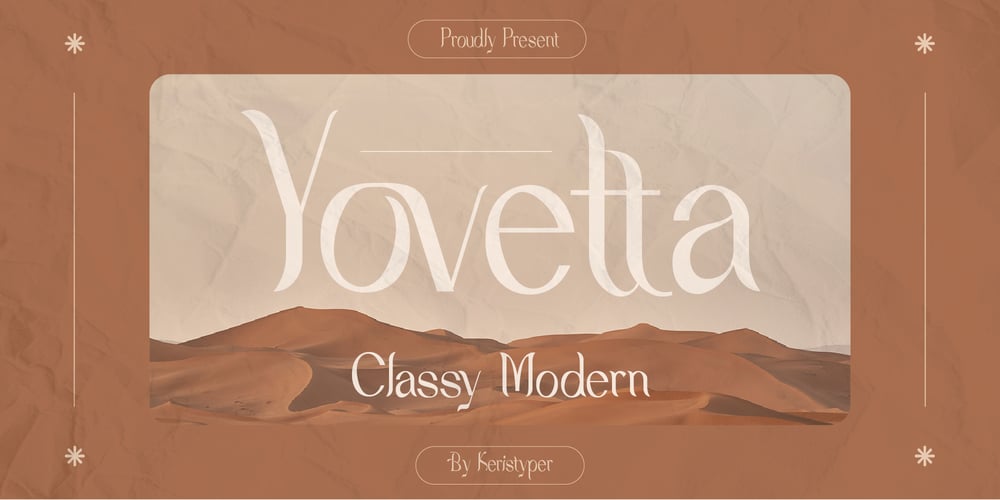
Yovetta Font Family was designed by Tezar Tantular and published by Keristyper Studio. Yovetta contains 1 styles and family package options. Yovetta is an aesthetic sans serif typeface that looks elegant and timeless inspired by nature and classy modern. This hand-drawn typeface is made in a digital hand-drawn style with a classy scripted look. This font is good for logo design, Social media, Movie Titles, Books Titles, short text even long text letters, and good for your secondary text font with sans or serif.**Featured:*** Standard Uppercase & Lowercase* Numeral & Punctuation* Multilingual : ä ö ü Ä Ö Ü ß ¿ ¡* Alternate & Ligature* PUA encodedWe recommend programs that support the OpenType feature and the Glyphs panel such as Adobe applications or Corel Draw. so you can use all the variations of the glyphs.Hope you enjoy our fonts!